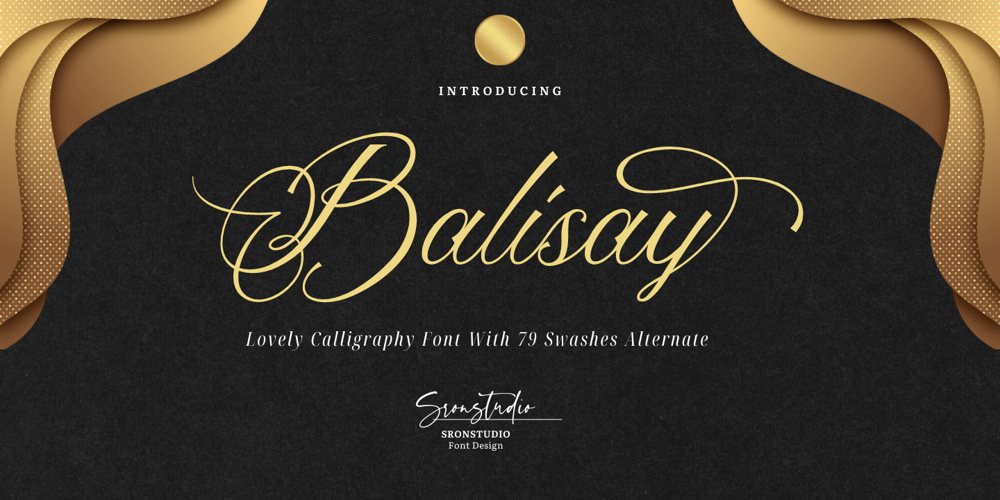
Balisay Font Family was designed by Muhamad Yusron Billah and published by Sronstudio. Balisay contains 1 styles and family package options. Meet Balisay, A Calligraphy font that is perfect for branding, invitation, stationery, wedding designs, social media posts, advertisements, product packaging, product designs, label, photography, watermark, special events, and more.Features: Uppercase and lowercase letters 70+ Lowercase Swash alternates Multilingual symbols, numerals, and punctuation How do access swashes alternate? https://sronstudio.com/sronstudio-font-guide/Any question? Don’t hesitate to drop me a message :)Follow Instagram: @sronstudio